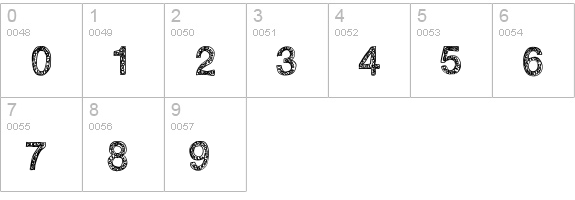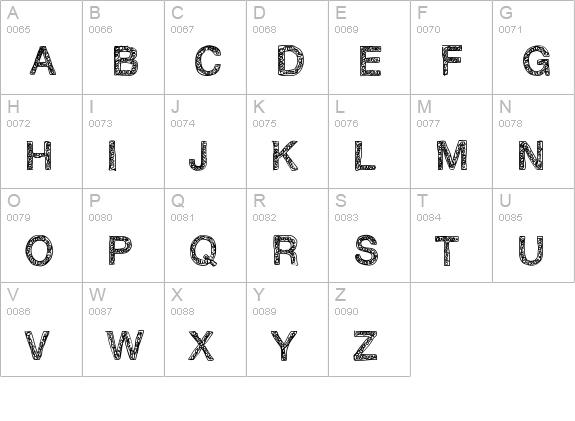
Introducing Swirlvetica, a captivating and versatile font that is bound to add a touch of elegance and sophistication to your designs. With its intricate swirls and exquisite curves, Swirlvetica is the perfect choice for anyone seeking a font that effortlessly combines grace with modernity. This stunning typeface is not only visually appealing but also incredibly versatile, making it suitable for a wide range of design projects. Whether you're creating logos, branding materials, invitations, or even website headers, Swirlvetica will undoubtedly leave a lasting impression. One of the most remarkable aspects of Swirlvetica is its seamless ability to adapt to different creative styles. Whether you're looking for a bold and impactful statement or a more delicate and refined touch, this font has it all. Its versatility allows you to experiment and explore various design possibilities, enabling you to bring your vision to life with ease. But what truly sets Swirlvetica apart is its availability as a free download at FontsMarket.com. Yes, you read that right – this extraordinary font can be yours without spending a penny. FontsMarket.com is renowned for offering high-quality fonts, and Swirlvetica is no exception. By making it freely available, they have given designers and creatives the opportunity to access a top-notch font without any financial constraints. So, whether you're a seasoned designer or just starting your creative journey, Swirlvetica is the perfect addition to your font collection. Its enchanting swirls and timeless elegance will undoubtedly elevate your designs, while the fact that it is readily accessible for free at FontsMarket.com makes it an even more irresistible choice. Don't miss out on the opportunity to enhance your creations with this captivating font – download Swirlvetica today and let your imagination soar.